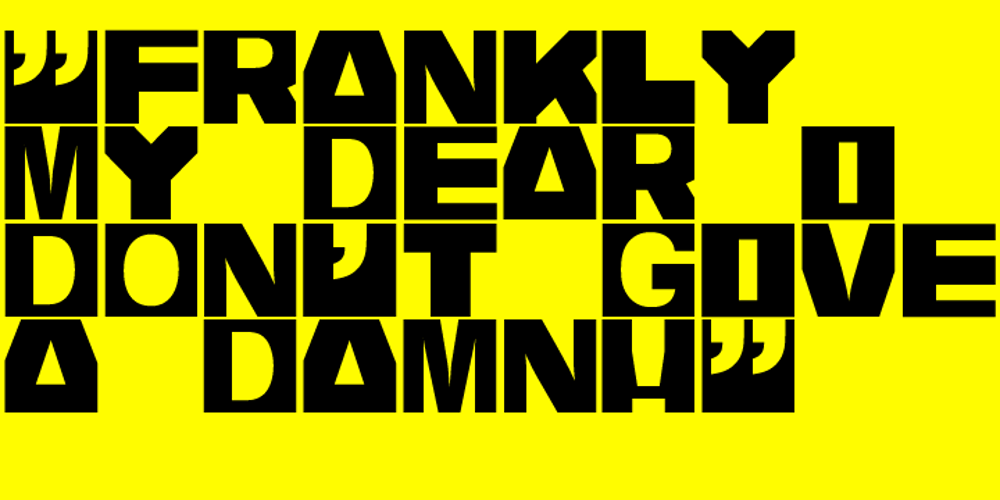
AT Move Bloggy Font Family was designed by André Toet, Jasper Nijssen and published by André Toet Design. AT Move Bloggy contains 1 styles and family package options. BLOGGY designed in 2010 by André Toet. In the series of typefaces that were created by our team, BLOGGY stands out as a rough typeface based on a grid. Within this square grid the typeface is enlarged and reduced in size in order to create a dazzling font. A complete ‘extra alphabet’ was added to the font by cutting the letters diagonally. To us typedesign doesn’t only mean designing fonts for books but also advertising, posters, film or digital use. We hope that BLOGGY will do the trick ! Concept/Art Direction/Design: André Toet © 2017